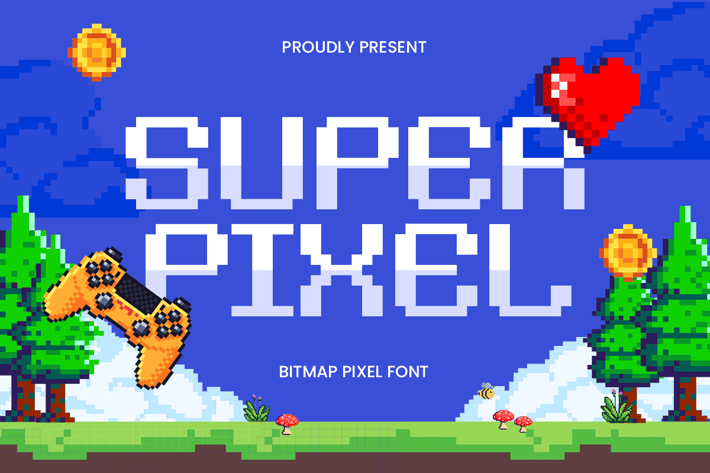
Super Pixel - Bitmap Pixel Font
Super Pixel is a bold and eye-catching bitmap pixel font designed for futuristic and tech-themed projects. Its sharp, geometric shapes create a sleek and modern look, making it ideal for game interfaces, digital branding, and tech presentations. Inspired by retro pixel art with a modern twist, Super Pixel brings a perfect balance of nostalgia and innovation to your designs.
With Super Pixel, your text will stand out in any digital environment. Its clean, blocky letterforms ensure readability on screens while adding a playful, high-tech aesthetic. Whether you're working on a gaming project, a tech startup, or a creative portfolio, Super Pixel offers the perfect typographic solution.
Unlock endless creative possibilities with this versatile pixel font, perfect for headlines, logos, and UI designs. Let your ideas shine with the futuristic charm of Super Pixel.